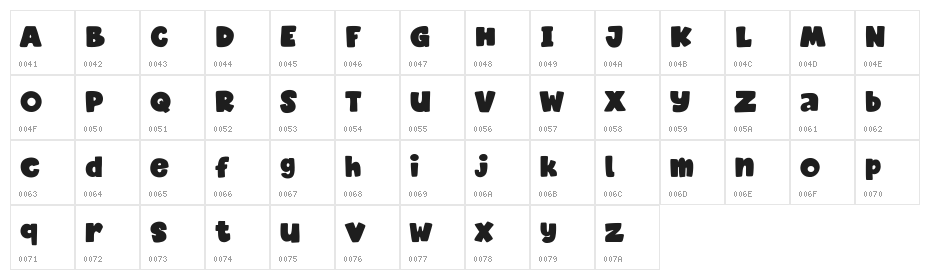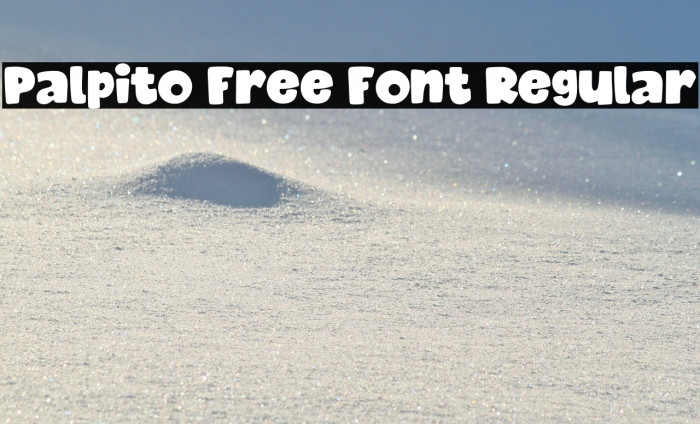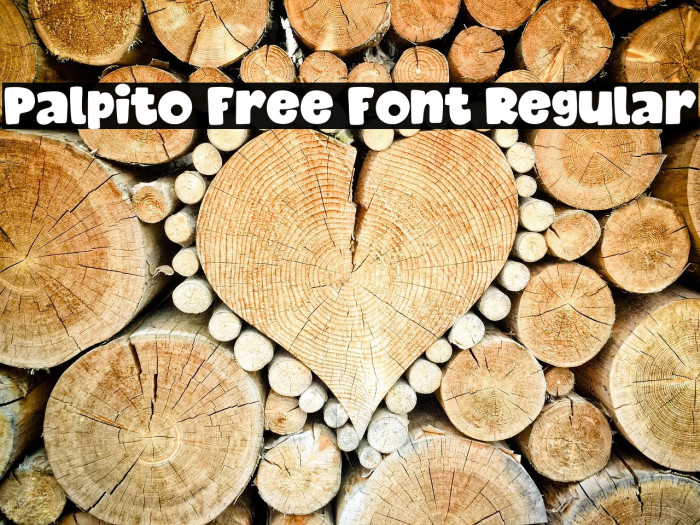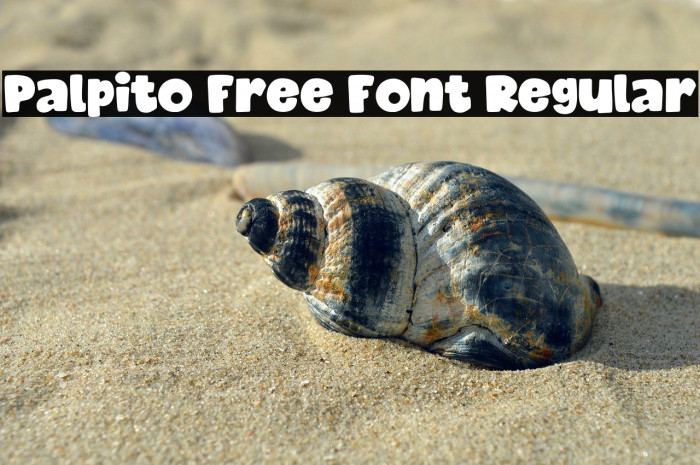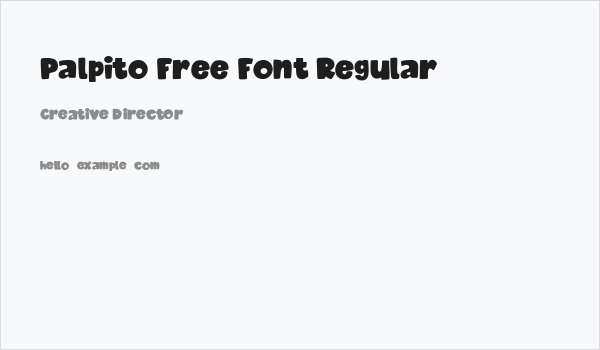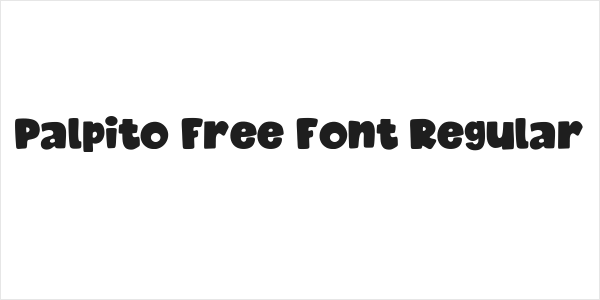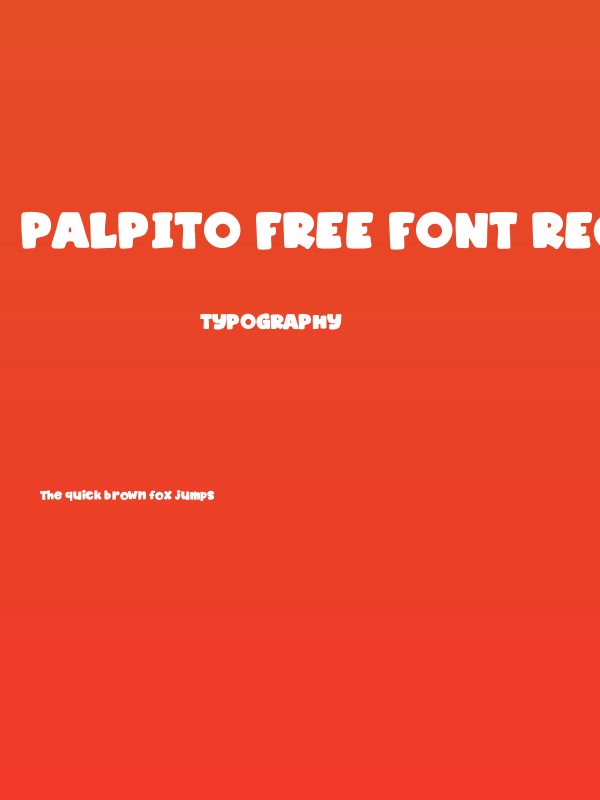
Palpito Free Font Regular Font
Palpito Free Font Regular Description
This font features a bold and playful design with rounded edges and a slightly irregular shape, giving it a whimsical and friendly appearance. The characters are thick and substantial, making them highly visible and impactful. The uppercase and lowercase letters maintain a consistent style, with a slight variation in the height and width that adds to the font's charm. The numbers and special characters are designed to match the overall playful aesthetic, ensuring a cohesive look across all text elements. This font is ideal for projects that require a fun and approachable feel, such as children's books, playful branding, or creative posters.
| Proposed Projects | Ideal for children's books, playful branding, creative posters, and fun invitations. |